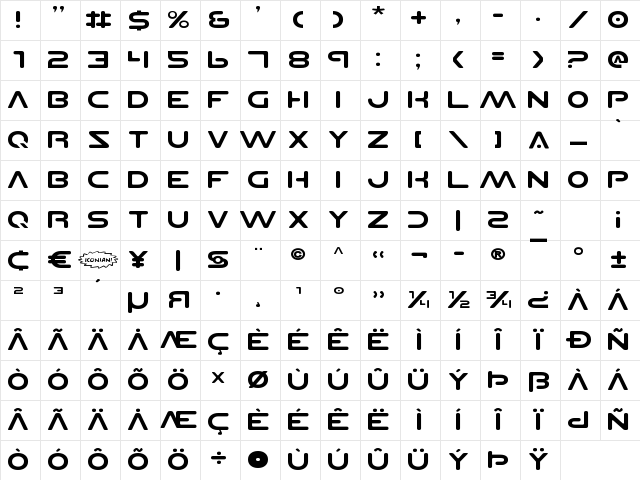
Planet NS Expanded Expanded
Style: Expanded
Design Context for Planet NS Expanded
Planet NS Expanded is a composed and adaptable typeface that performs quietly and consistently across a wide range of design contexts.